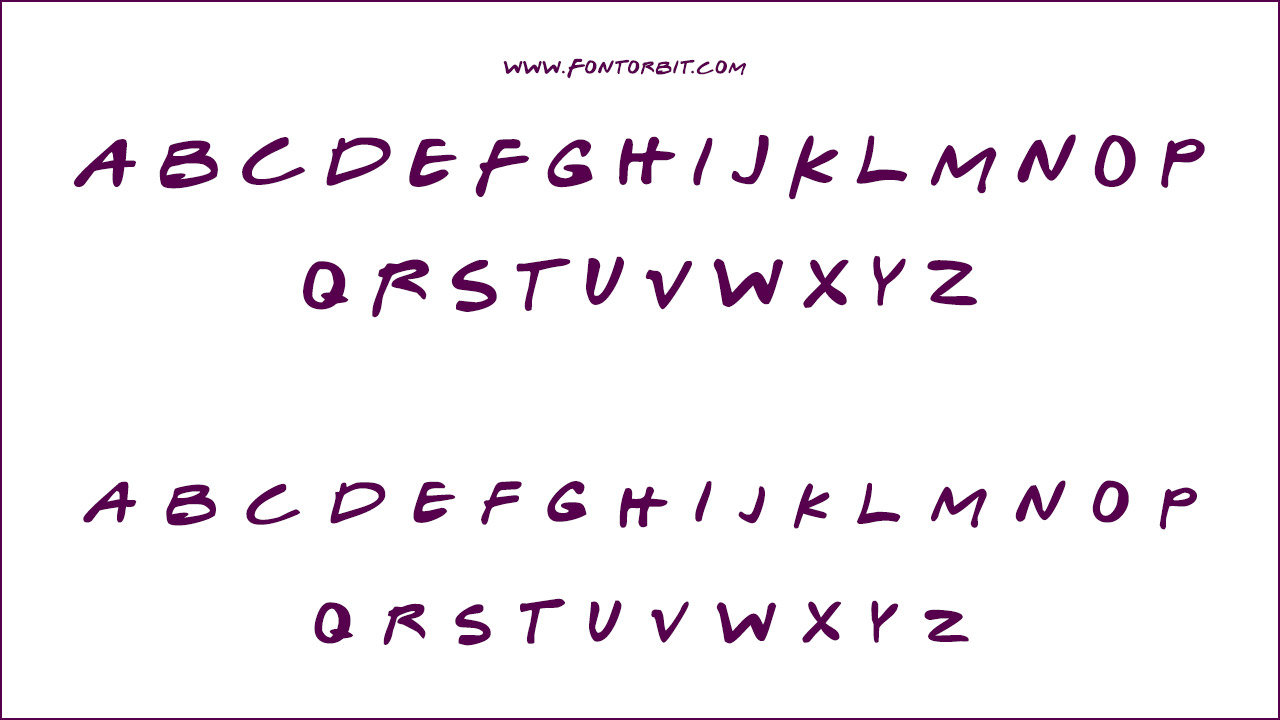
Gabriel Weiss Friends font is a whimsical and charming font designed by Gabriel Weiss. Published on several platforms, including DaFont and UrbanFonts, this playful typeface is part of the Gabriel Weiss family and falls under the category of script fonts. The font features a casual, handwritten style that brings a touch of personal flair to any project.
Gabriel Weiss Friends is a unique script font with a friendly and approachable design. It’s a versatile choice for adding a personal touch to your designs. The family includes:
Notable Uses Of Gabriel Weiss’ Friends
Gabriel Weiss Friends is ideal for various creative projects that require a touch of whimsy. It is commonly used for:
- Office branding
- Signage and trade show displays
- GIFs
- Event and conference spaces
- Infographics
- Presentations
- Stadium branding
- Tutorial videos
This font is perfect for informal and playful contexts. It works well in:
- Creative and artistic projects
- Youth-oriented designs
- Personalized content and casual branding
Gabriel Weiss’ Friends is a delightful script font that adds personality and charm to a variety of projects. Its informal style makes it a great choice for creative and casual uses. With its playful design, it’s perfect for making your content stand out and feel more personal.
5.What Types Of Projects Is Gabriel Weiss’ Friends Best Suited For?
It’s great for invitations, personal blogs, and informal announcements.
6.Are There Similar Fonts To Gabriel Weis’s Friends?
Yes, fonts like Dancing Script and Pacifico offer a similar playful style.
9.Is Gabriel Weiss’ Friends Easy To Read?
It’s designed for casual use, so while it’s not ideal for body text, it works well for headlines and decorative purposes.